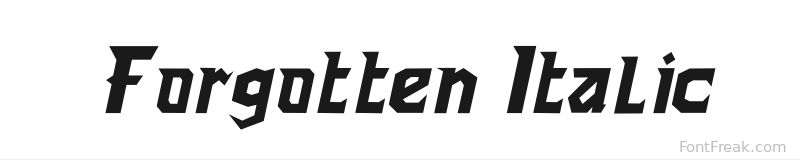
Forgotten
Forgotten Italic
About Forgotten
The Forgotten font by Kong Font is a striking display typeface that brings a unique flair to various design projects. Released in 2019 under a freeware license, this font features bold, angular letterforms that convey a sense of strength and individuality. The strokes are thick and heavy, yet they maintain a certain elegance, making it ideal for capturing attention. The contrast between the thick and thin strokes, combined with the sharp edges, creates a dynamic visual effect that stands out in any application.
One of the defining characteristics of the Forgotten font is its spacing, which is well-balanced, allowing for readability even in larger sizes. The decorative elements, such as the distinctive serifs and unique letter shapes, add an artistic touch that can elevate the overall aesthetic of any design. This font is particularly well-suited for a variety of creative projects. It excels in wedding invitations, where its boldness can convey a sense of grandeur, as well as in movie posters, where it can create a dramatic impact. Additionally, it works beautifully on restaurant menus, particularly for upscale dining experiences, and can be utilized in branding materials for small businesses looking to make a memorable impression.
The target audience for the Forgotten font includes graphic designers, small business owners, and content creators who are in search of a distinctive typeface that can enhance their visual communication. The font's unique personality allows it to resonate in various contexts, ensuring that it captures the essence of the project.
What sets the Forgotten font apart is its ability to blend boldness with elegance, making it a versatile choice for any designer looking to leave a lasting impression. For those interested in enhancing their design toolkit, the Forgotten font free download offers an excellent opportunity to incorporate this standout typeface into their projects.